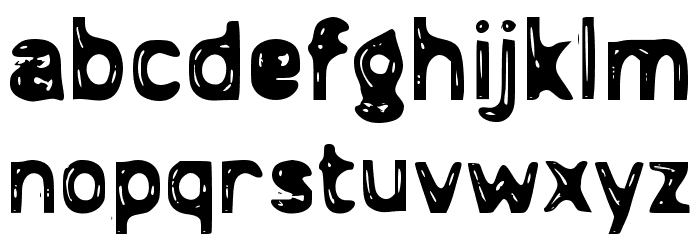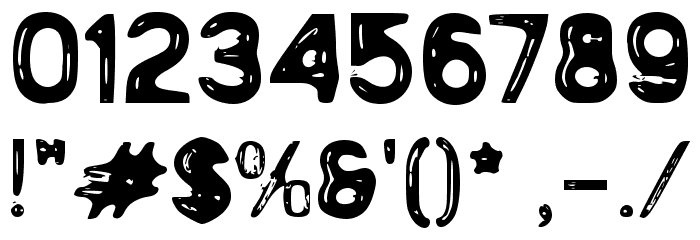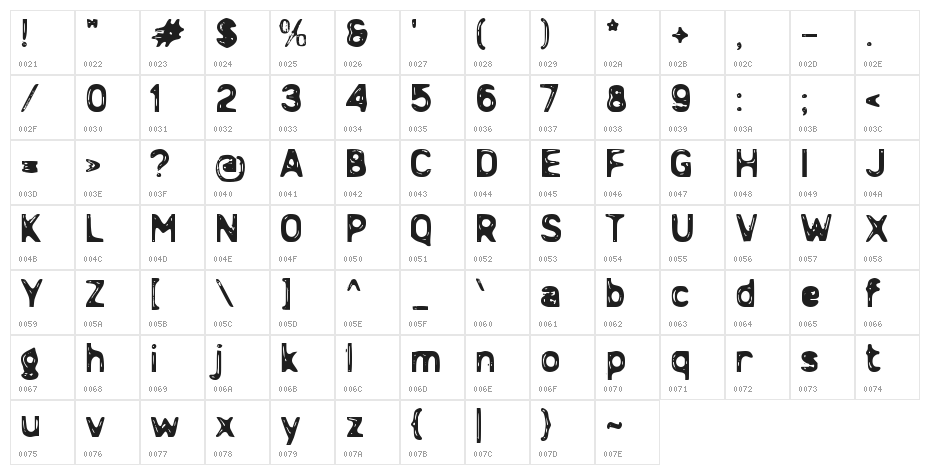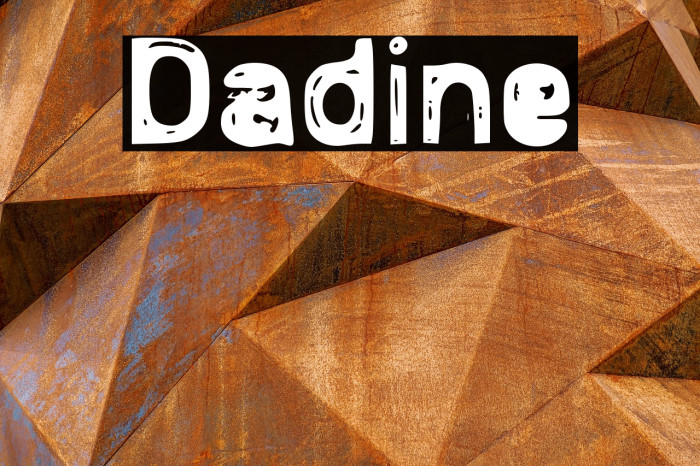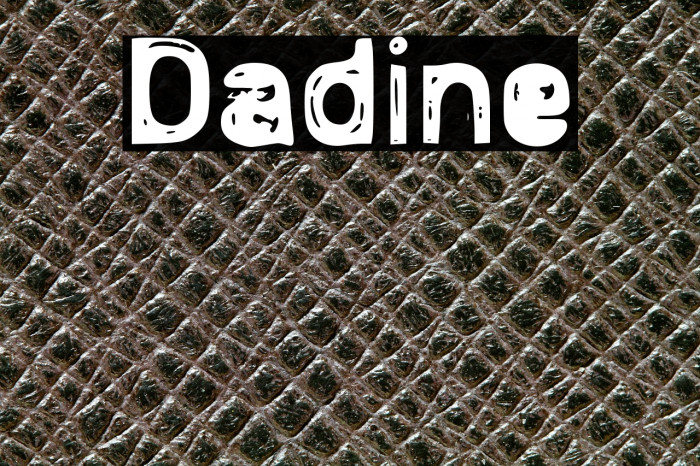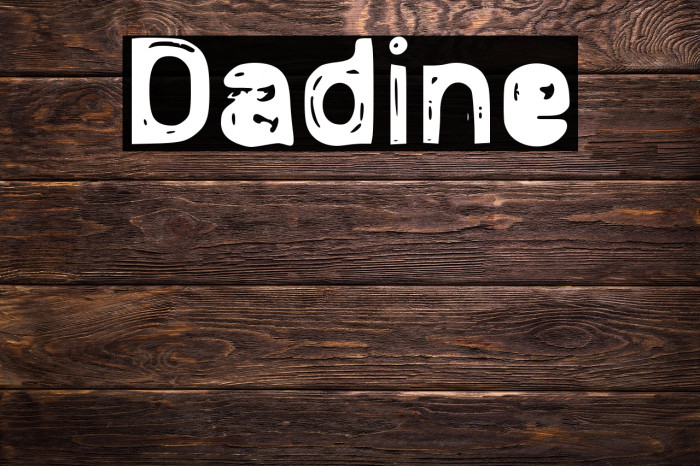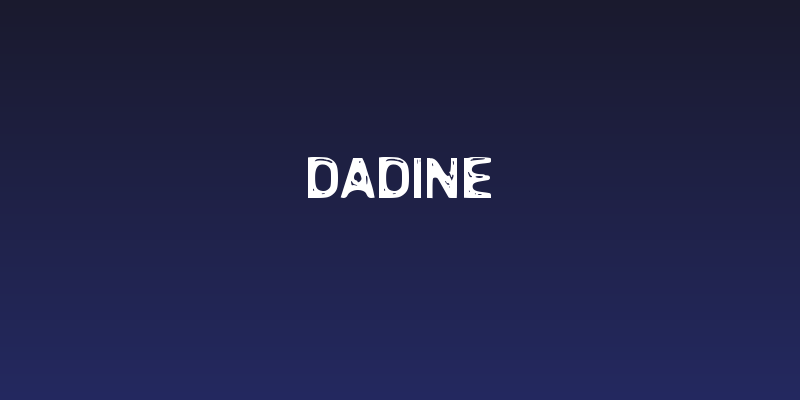
Dadine Font
This font features a bold, playful style with a unique, hand-drawn appearance. The characters are filled with irregular shapes and spots, giving them a whimsical and artistic feel. The uppercase and lowercase letters maintain a consistent style, with rounded edges and varying stroke thicknesses that add to the font's dynamic look. Numbers and special characters follow the same playful design, making this font suitable for creative projects. Its distinctiveness makes it stand out, ideal for capturing attention in various design contexts.
A bold, playful font with a hand-drawn, artistic style.
- Font: Dadine
- Proposed Projects: Ideal for children's books, playful branding, posters, and creative invitations.
- Overall Style: Playful, Artistic, Whimsical